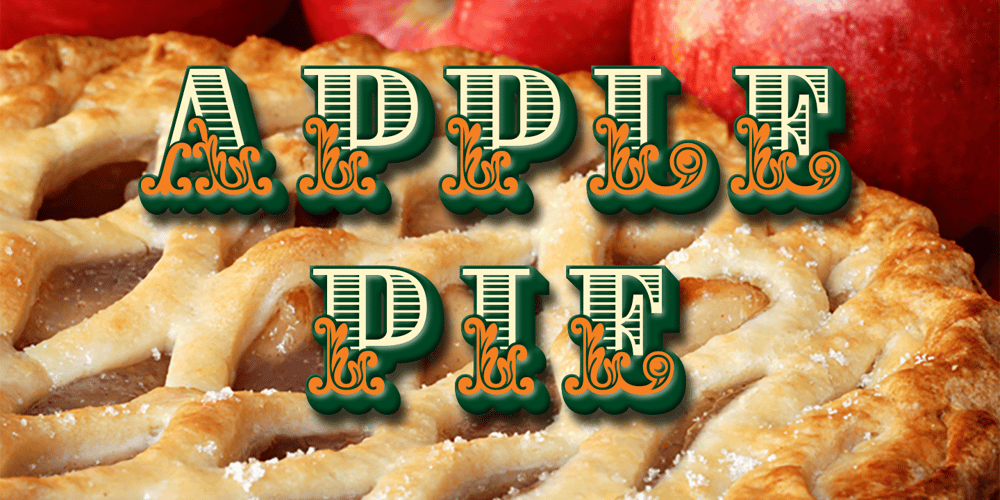
Apple Pie Font Family was designed by Michael Hagemann and published by FontMesa. Apple Pie contains 5 styles and family package options. You might call this a Bodoni Ornate font that Bodoni never made, close examination of this old 1800s font and it’s plain to see that the top half of the letters is very Bodoni in appearance. Apple Pie is a revival of and old font from the William Hagar Type Foundry, which I’ve been able to date back to 1850. The William Hagar type specimen book from the 1850s only shows this font as a caps only typeface plus numbers, later in 1869 MacKellar Smiths and Jordan offered this font with a lowercase. Over a two year period I was able to collect enough letters to begin production of this old decorative font, the type specimen books only showed a small line of text for this font so I would search through old documents on eBay and also shows relating to Ephemera. I could have easily developed a new font based on a very small sample of letters but I wanted to wait and find as many letters as possible, I was unable to find the Q, X, Z and ten lowercase letters so those missing letters are of my own design. New to this font is the addition of an all Caps Greek character set, accented letters for Eastern Central and Western European countries is also within this font. Fill fonts are available for the Apple Pie font, you will need an application that works in layers such as Adobe Photoshop, Adobe Illustrator or Corel Graphics in order to use the Fill fonts. Some Fill fonts may be used as stand alone fonts but the versions for Apple Pie look best when layered behind the parent or main Apple Pie fonts. Be sure to check out the left and right hands located on the Less Than and Greater Than keys.